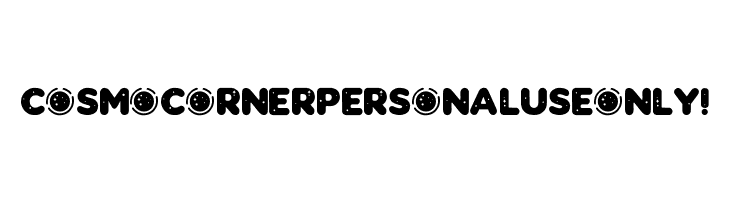
( Fonts by Skytroopas )
A whimsical, decorative font with cosmic motifs in each character.
( Fonts by Beautypes - Bhakti Al Akbar Pasaribu - Personal-use only. For commercial use please contact owner. )
A modern serif font with high contrast and elegant styling.
( Fonts by Beautypes - Bhakti Al Akbar Pasaribu - Personal-use only. For commercial use please contact owner. )
A modern, bold sans-serif font with geometric shapes and balanced proportions.
( Fonts by kokostd )
A bold, playful font with rounded edges and a friendly appearance.
( Fonts by Kong Font )
( FinlaysonFilm - finthehobb.it )
A whimsical, cursive-like font with playful, fluid strokes and unique flourishes.
( Fonts by www.fontalicious.com )
A bold, geometric font with a futuristic and playful design.
( Vladimir Nikolic - www.coroflot.com/vladimirnikolic )
A decorative font with concentric circular patterns creating a futuristic look.
( Fonts by Manuel Ramos - www.infinitismo.com - Personal-use only. For commercial use please contact owner. )
A futuristic and sleek font with thin, elongated letterforms and geometric shapes.
( Fonts by Vladimir Nikolic - Personal-use only. For commercial use please contact owner. )
Bold serif font with a classic style.
( Fonts by Stefie Justprince )
A bold, distressed font with a playful, textured appearance.